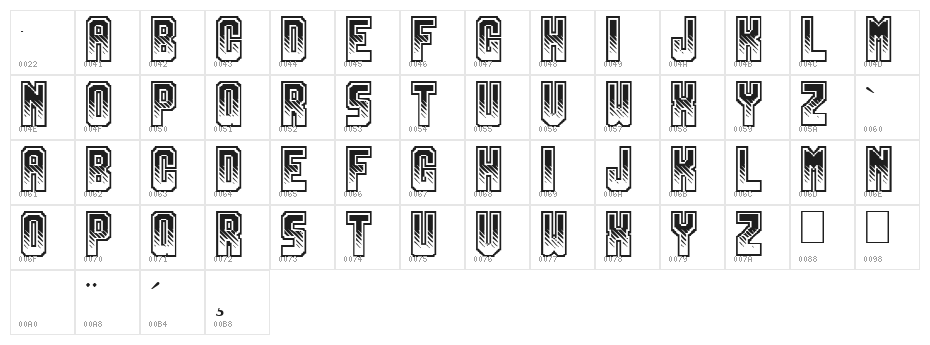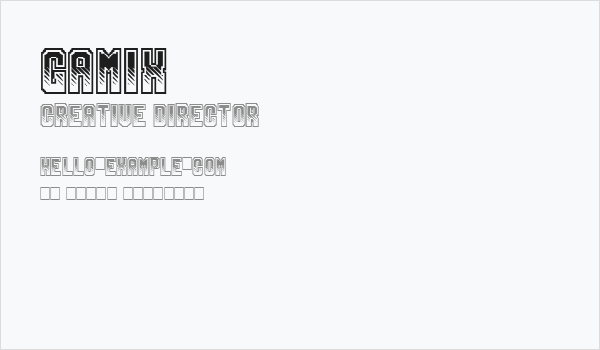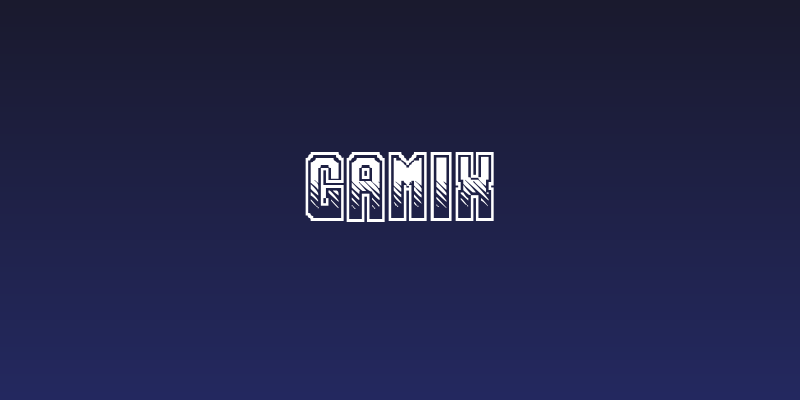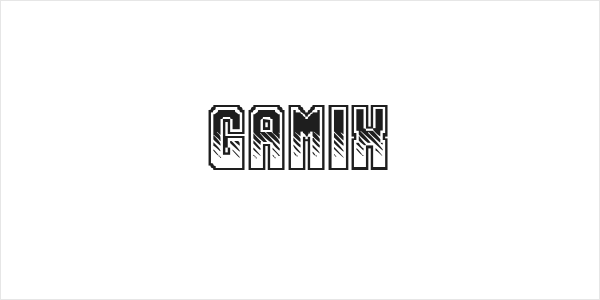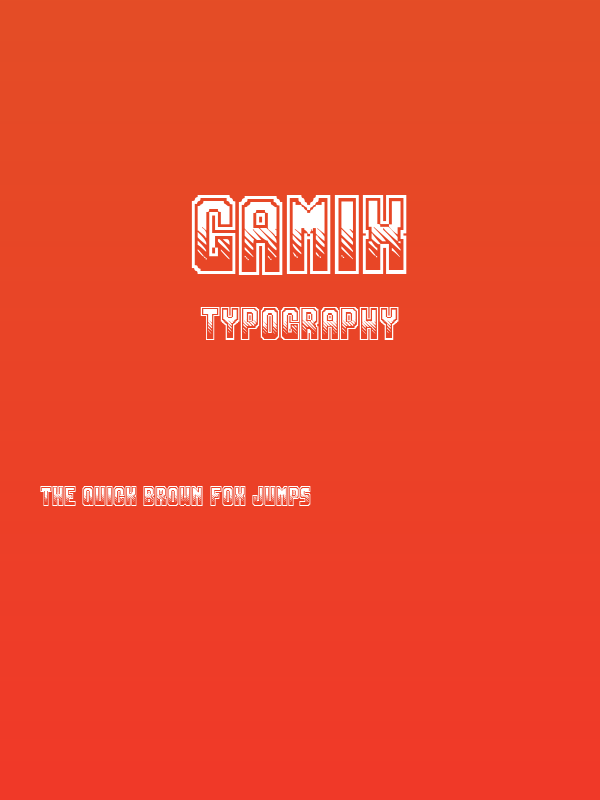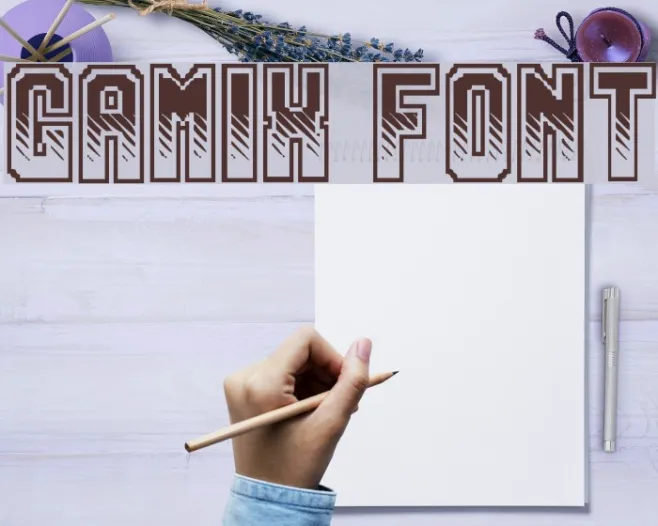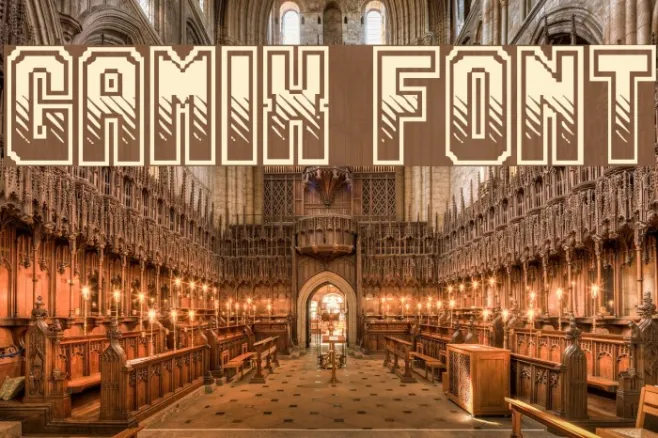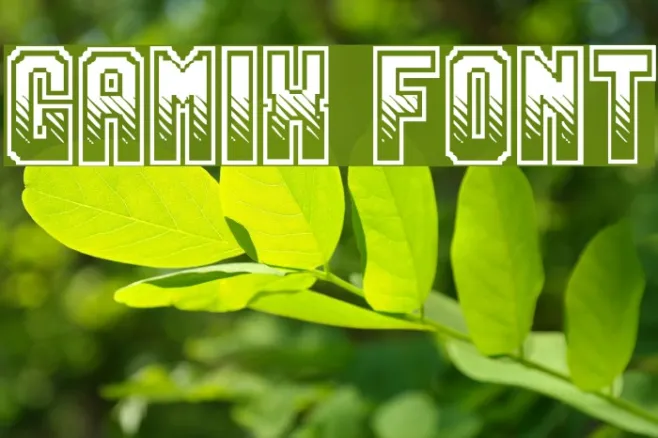
Gamix Font
Gamix Description
This font features a bold, three-dimensional design with a distinct shadow effect that gives it a dynamic and eye-catching appearance. The characters are outlined with a thick border, enhancing their visibility and impact. The interior of each letter is filled with diagonal lines, adding texture and depth. This style is reminiscent of retro and arcade aesthetics, making it suitable for projects that require a playful yet strong visual presence. The uppercase letters are uniform in height, contributing to a cohesive and structured look. The font's unique design makes it ideal for headlines, posters, and any creative work that seeks to capture attention with a vintage flair.
| Use Case | Headlines, Posters, Logos |
| Proposed Projects | Ideal for retro-themed posters, video game graphics, and eye-catching headlines. |